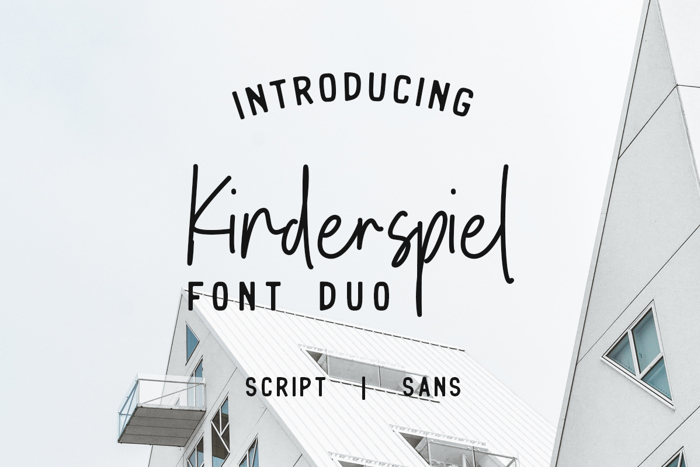
Kinderspiel Script DEMO Font
Introducing the New Font Duo with Stylistic Typeface **Kinderspiel**. A Typface with handwriting and elegant signature script and trendy all caps sans serif with rough version. **Kinderspiel** is perfect to creating typography and graphic design project like Invitation, Card, Apparel, Postcard, Givingcard, Logotype, Book Cover, etc
This Font Duo is packaged with extra Opentype. The Script includes some alternate and stylistic ligature and swash extras. The Sans includes Rough version make your design look classy